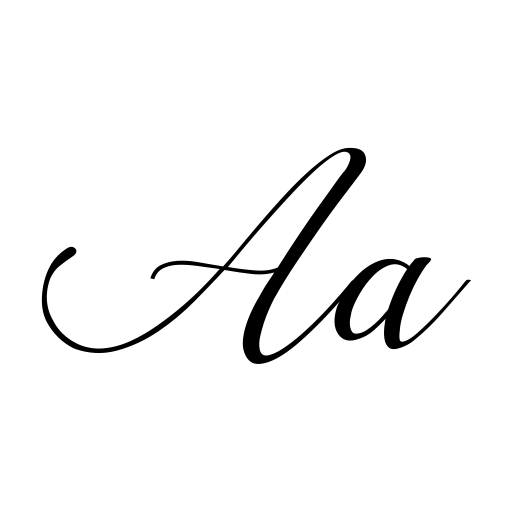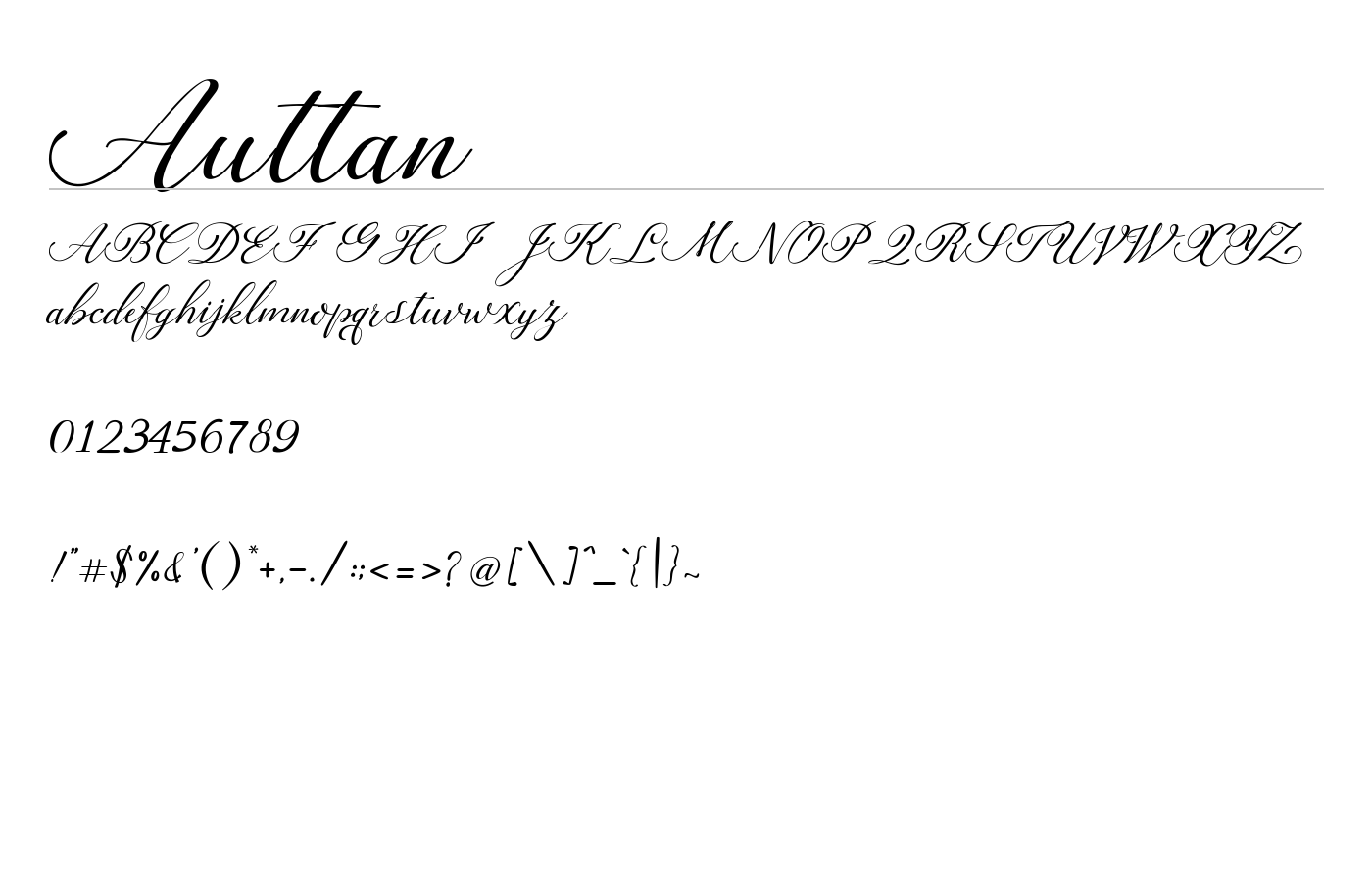
Auttan is an elegant, flowing script font characterized by its fine, delicate strokes and graceful letterforms that evoke a classic, sophisticated feel. Its slender, slightly condensed style with smooth curves and high contrast creates a refined and charming appearance perfect for luxury branding, invitations, and editorial designs where a touch of timeless beauty is desired. This font shines in contexts that call for elegance and a personal, handwritten touch without sacrificing readability.
Auttan Font